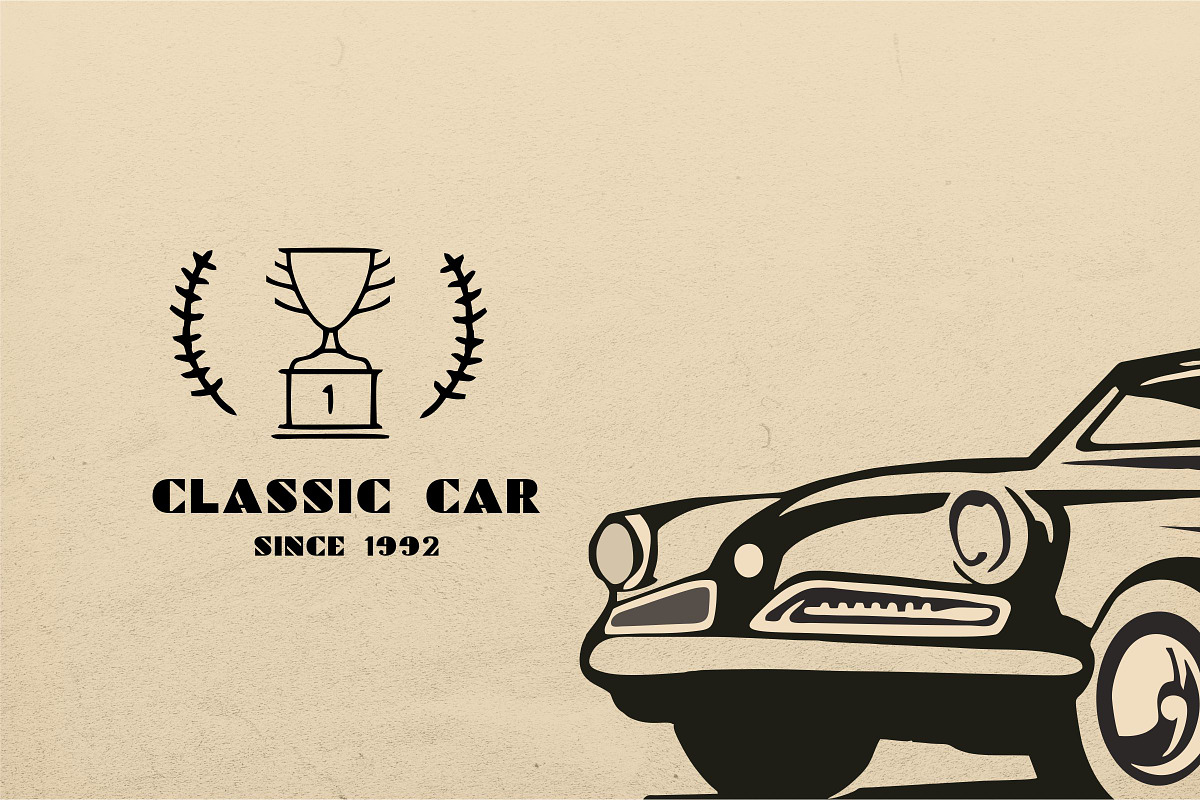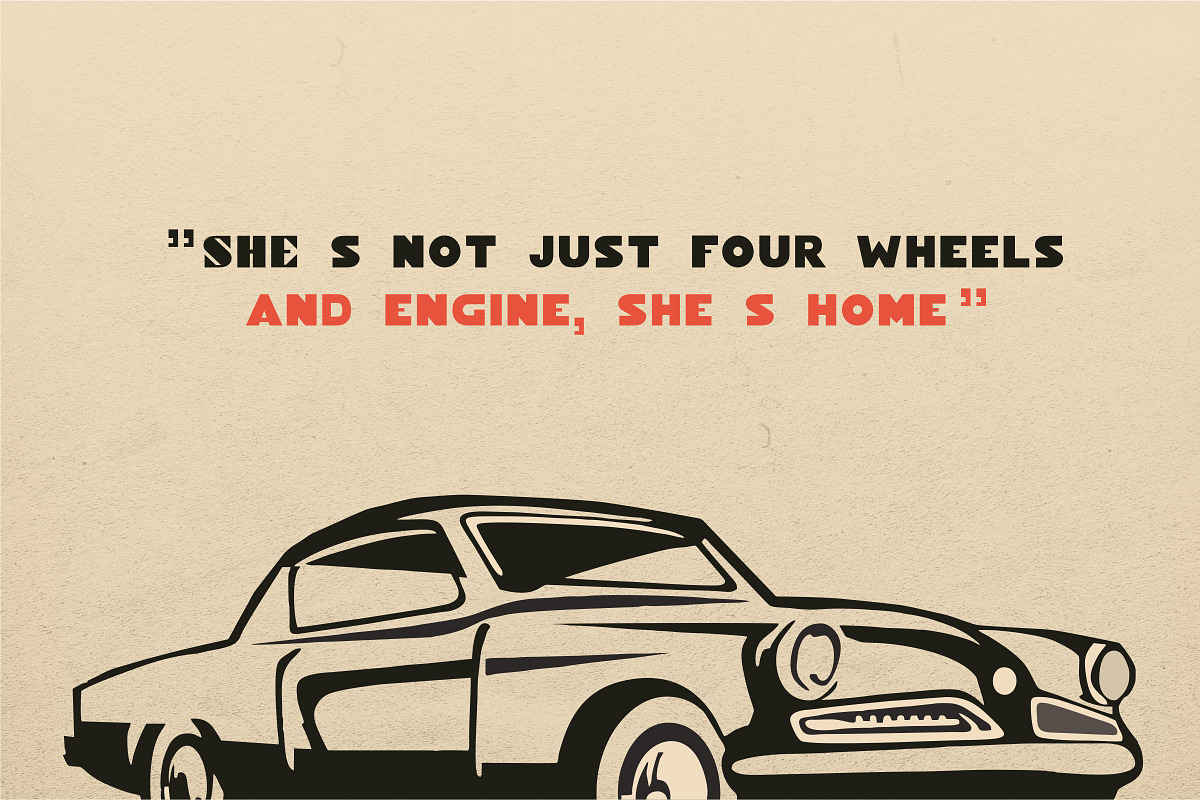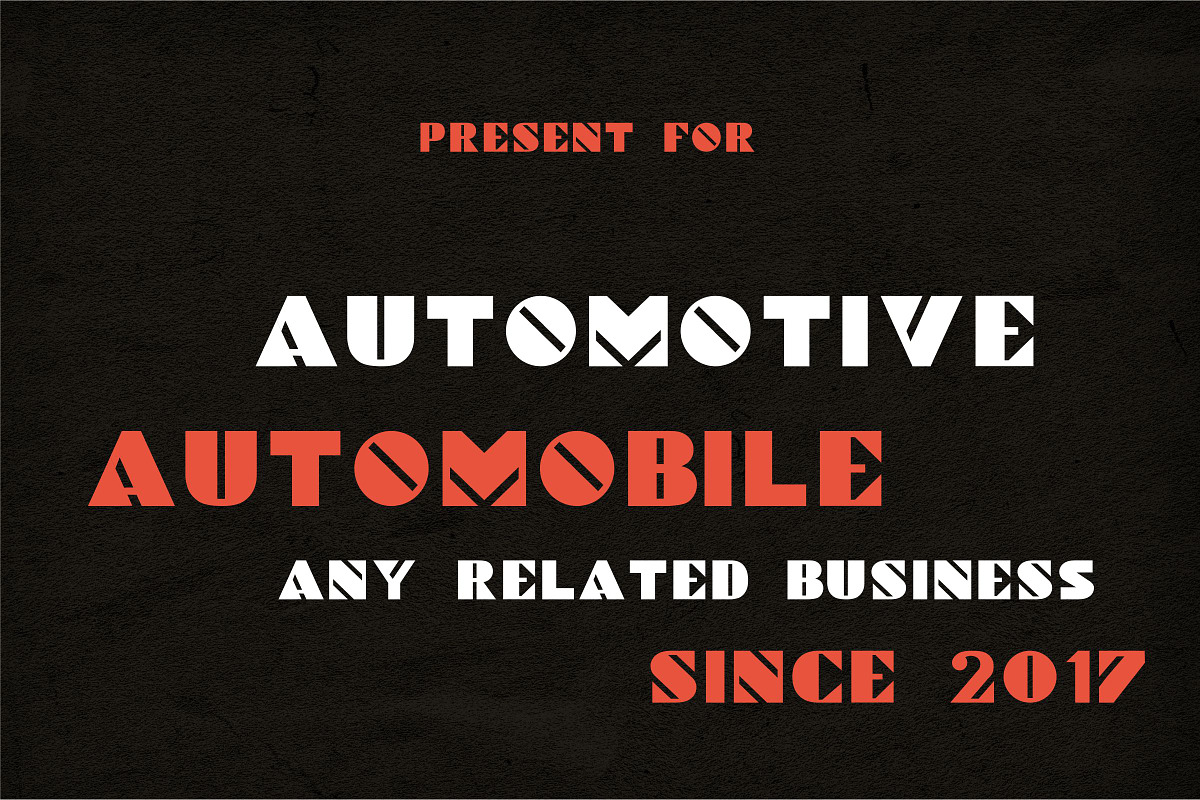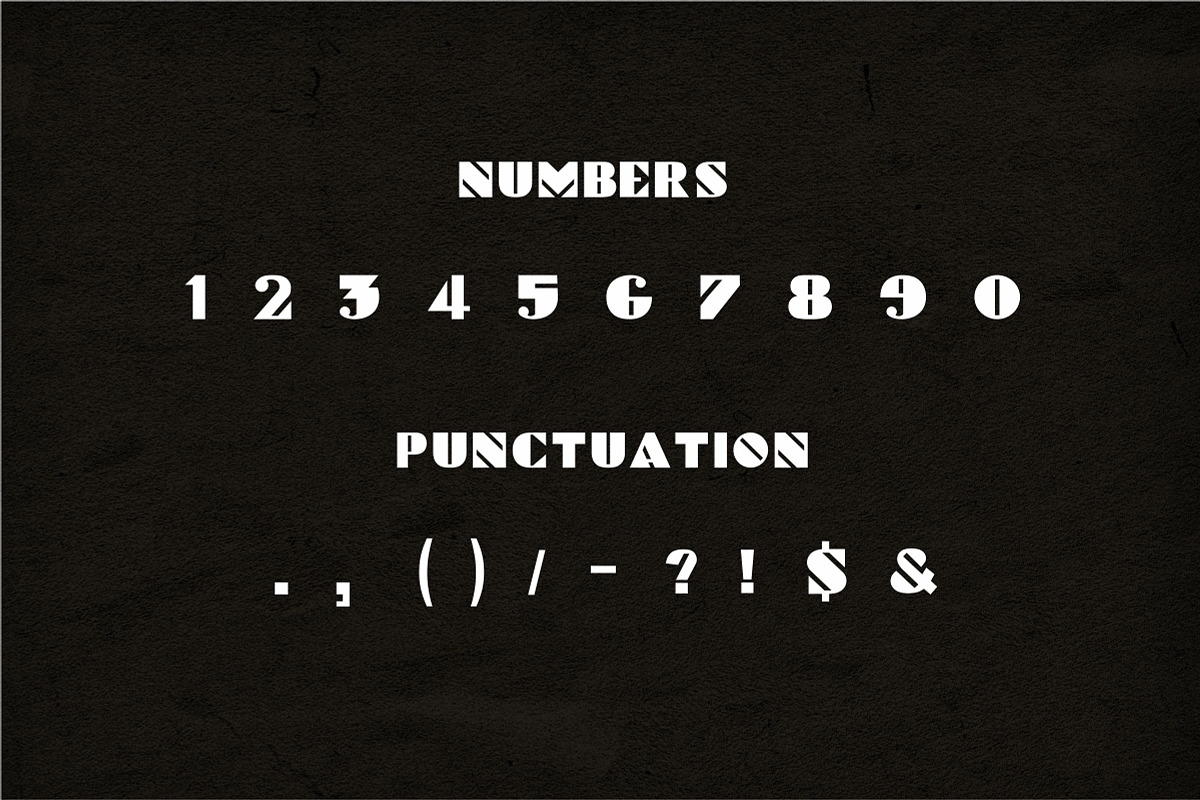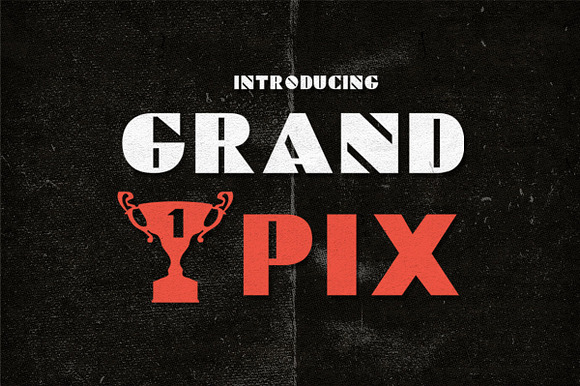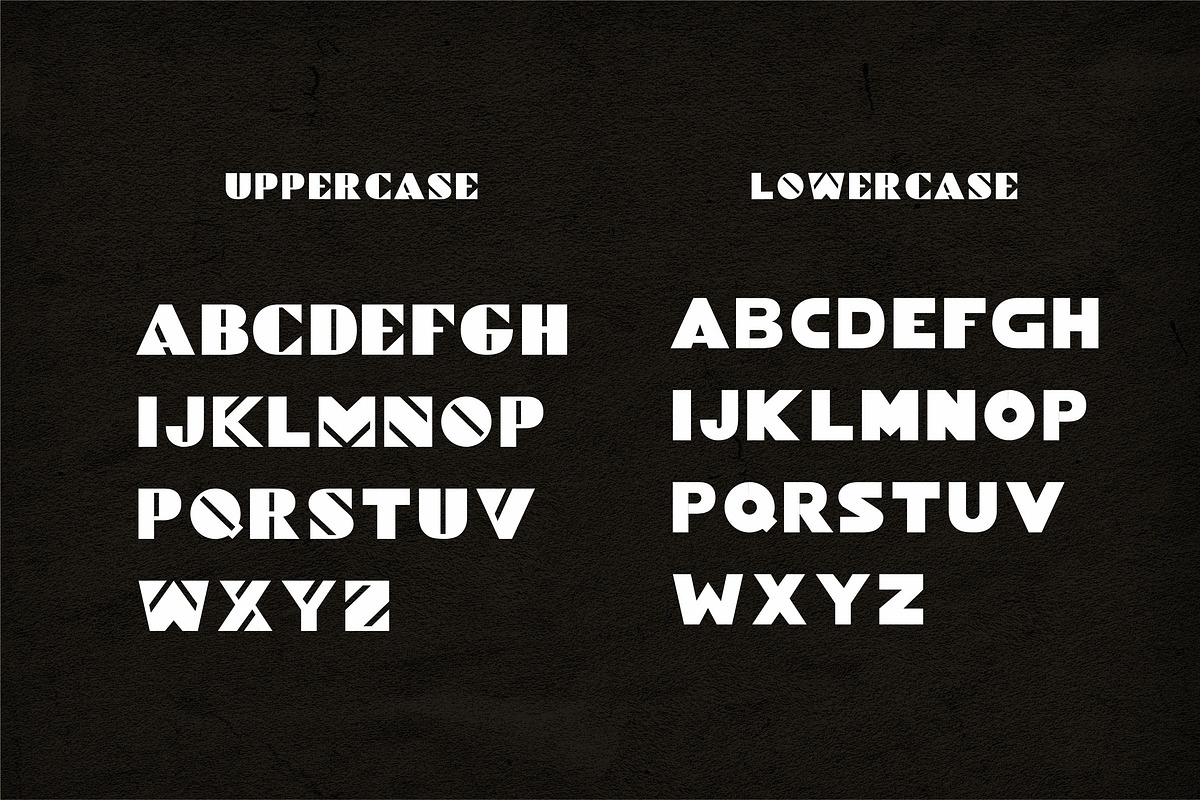
Grand Pix Font
Grandpix font, idea come from car competition, and concept font and road, verry bold and strong. good for any automotive related business,include grandpix font.otf and grandpix font.ttf regards, aankurniawan
Grand Pix Font by Akdesain fits naturally into Branding, posters, packaging, typography.